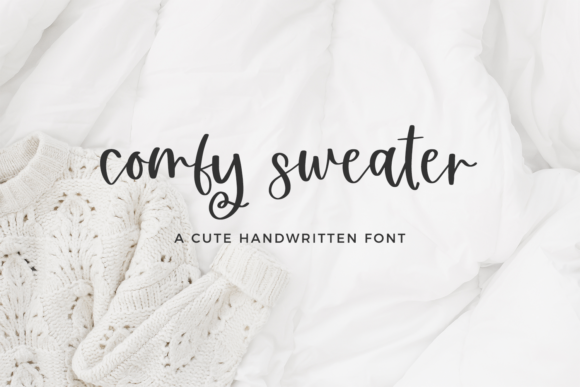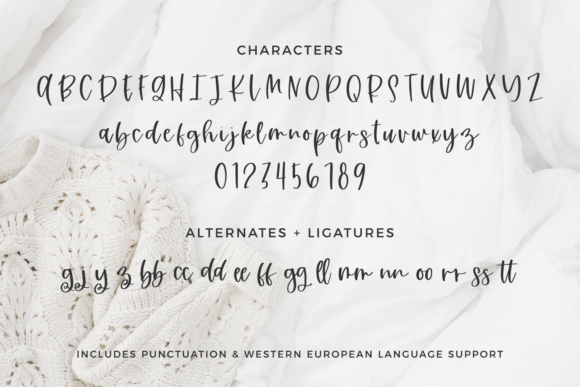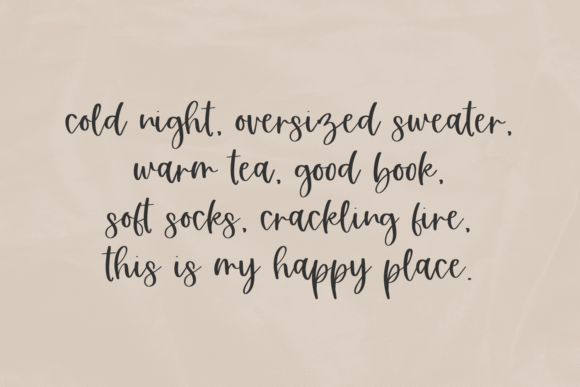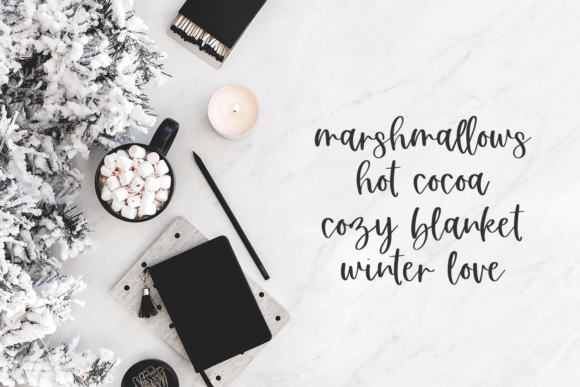
About Comfy Sweater Font
Comfy Sweater is a sweet and cursive handwritten font. This gentle font will look gorgeous on a variety of design ideas. It will add a joyful and romantic touch to each of your projects!